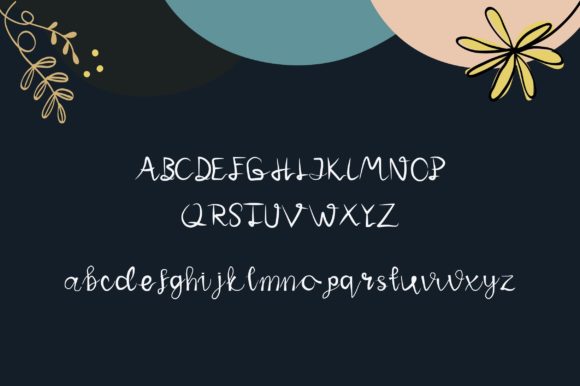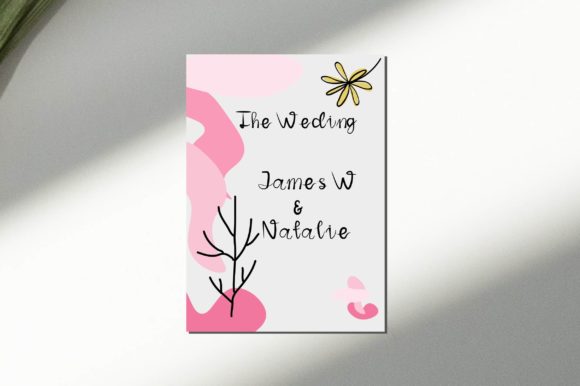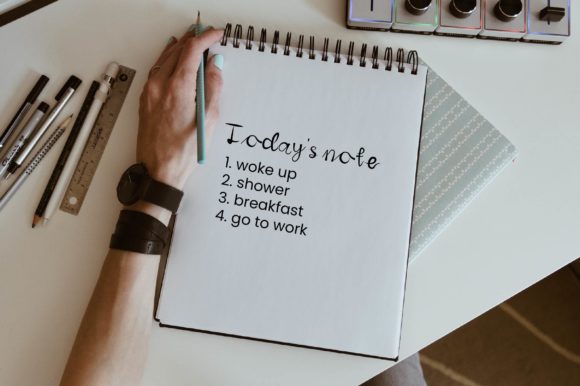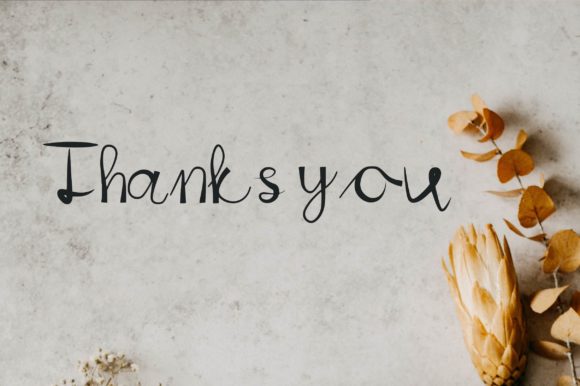
The Magical World of Callisukan Font: A Designer’s Delight
I’ll never forget the time I was working on a whimsical craft project, pouring my heart into a handmade wedding invitation. I had the design concept nailed, but something was missing – the perfect font. That’s when I stumbled upon Callisukan, a lovely script font that seemed to dance along the baseline. It was love at first sight! In this article, I’ll share my experience with Callisukan, its features, and how to make the most of this charming font.
An Honest Review of Callisukan Font
What I Love About Callisukan ✨
- Playful, charming characters that add a touch of personality to any design project ✅
- Seamless integration with OpenType features, allowing for creative experimentation
- Extensive glyph library, perfect for adding unique touches to your designs
- Works beautifully for both digital and print projects
- May not be the best fit for very formal or traditional design projects ⚠️
- Some characters may require manual kerning for optimal results
- Limited availability of stylistic alternates, but still offers a range of creative options
The Backstory of Callisukan Font
Callisukan was designed by a team of creatives who aimed to create a font that would bring joy and playfulness to design projects. Inspired by the beauty of handwritten scripts, they crafted Callisukan to be a versatile font that could be used in various contexts, from digital designs to print materials.
| Font Name | Callisukan Font |
| Author | Rhetorika Studio |
Q: What type of projects is Callisukan best suited for?
A: Callisukan is perfect for creative projects, such as handmade crafts, wedding invitations, and digital designs that require a playful touch.